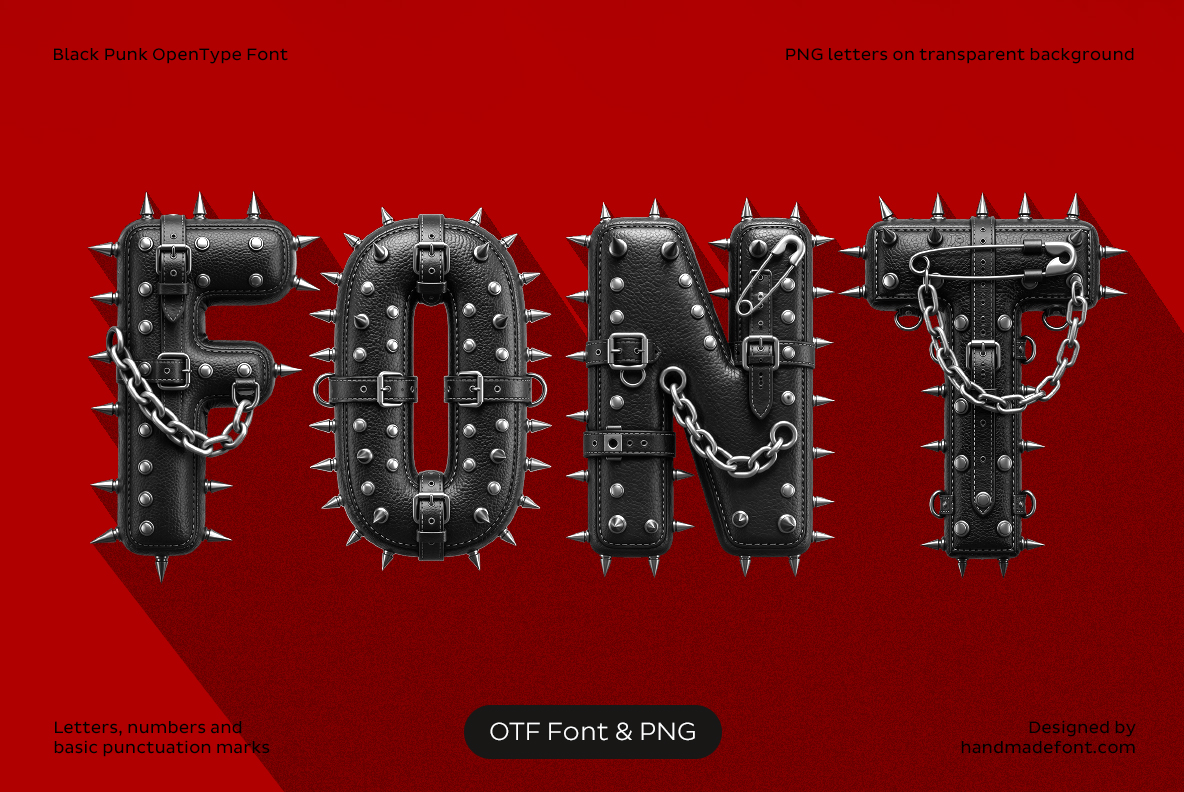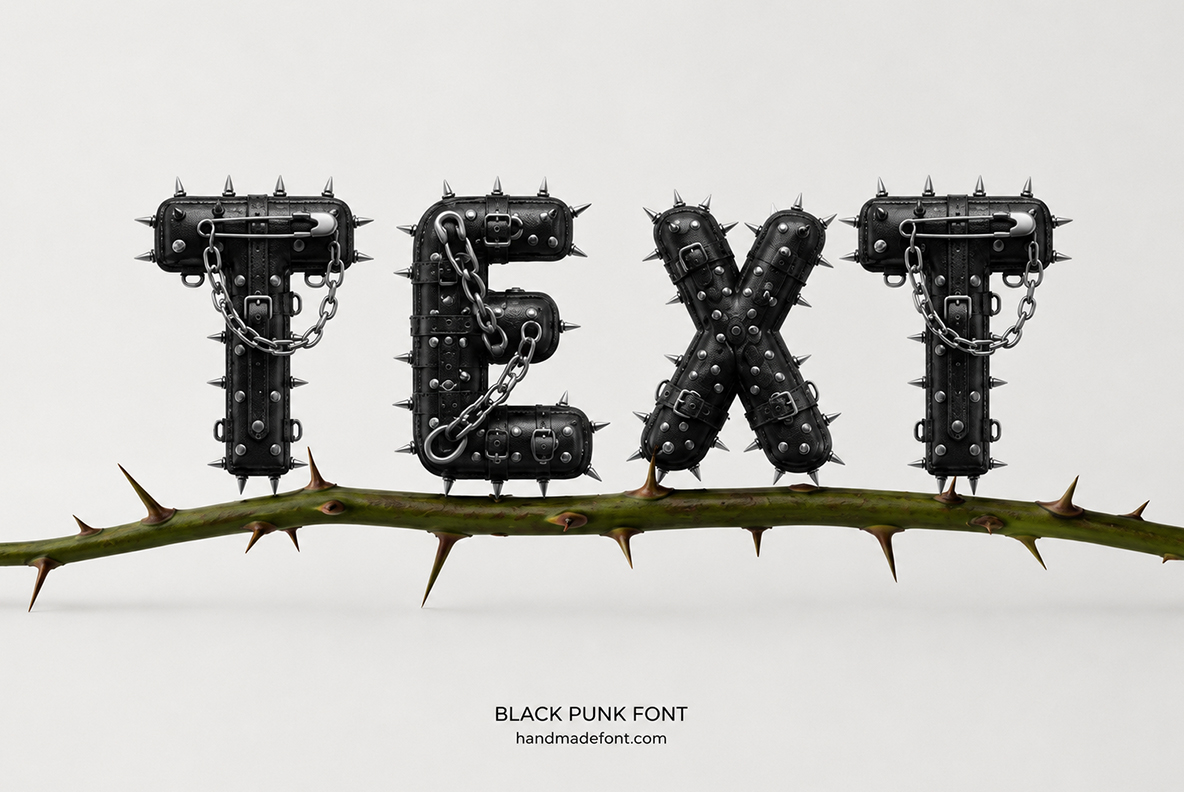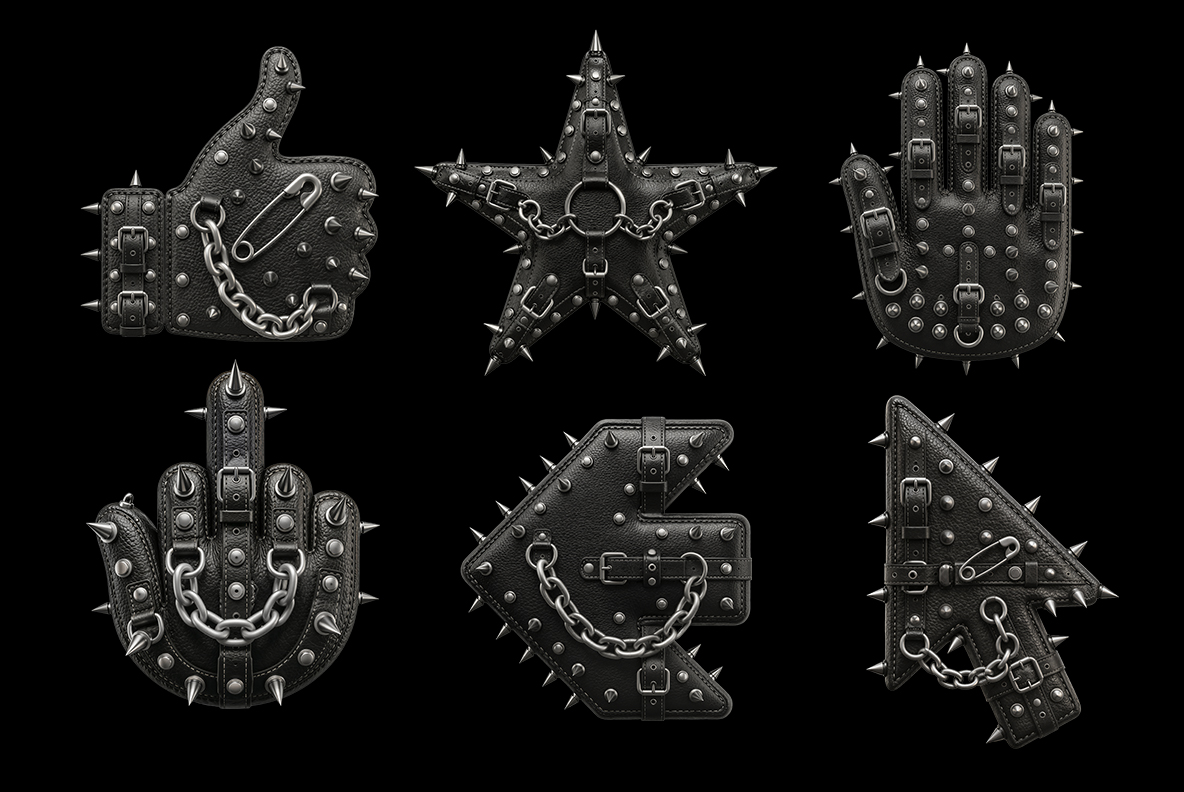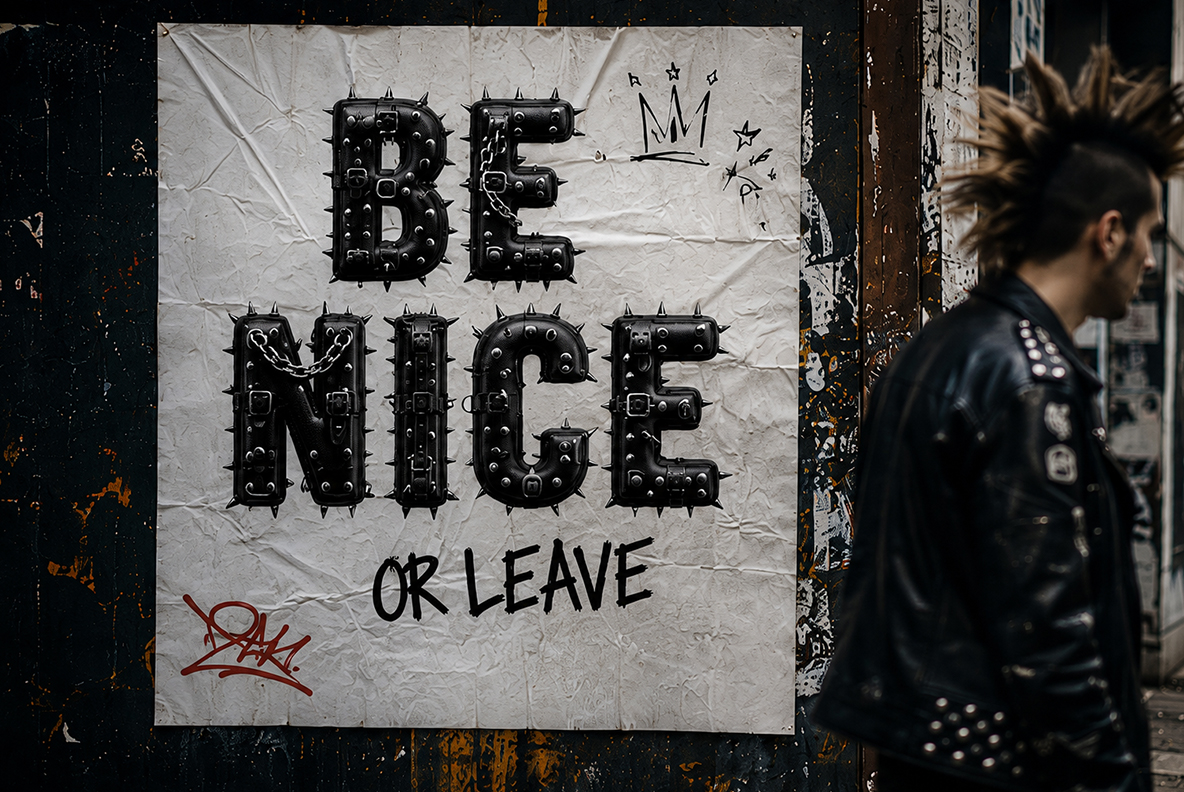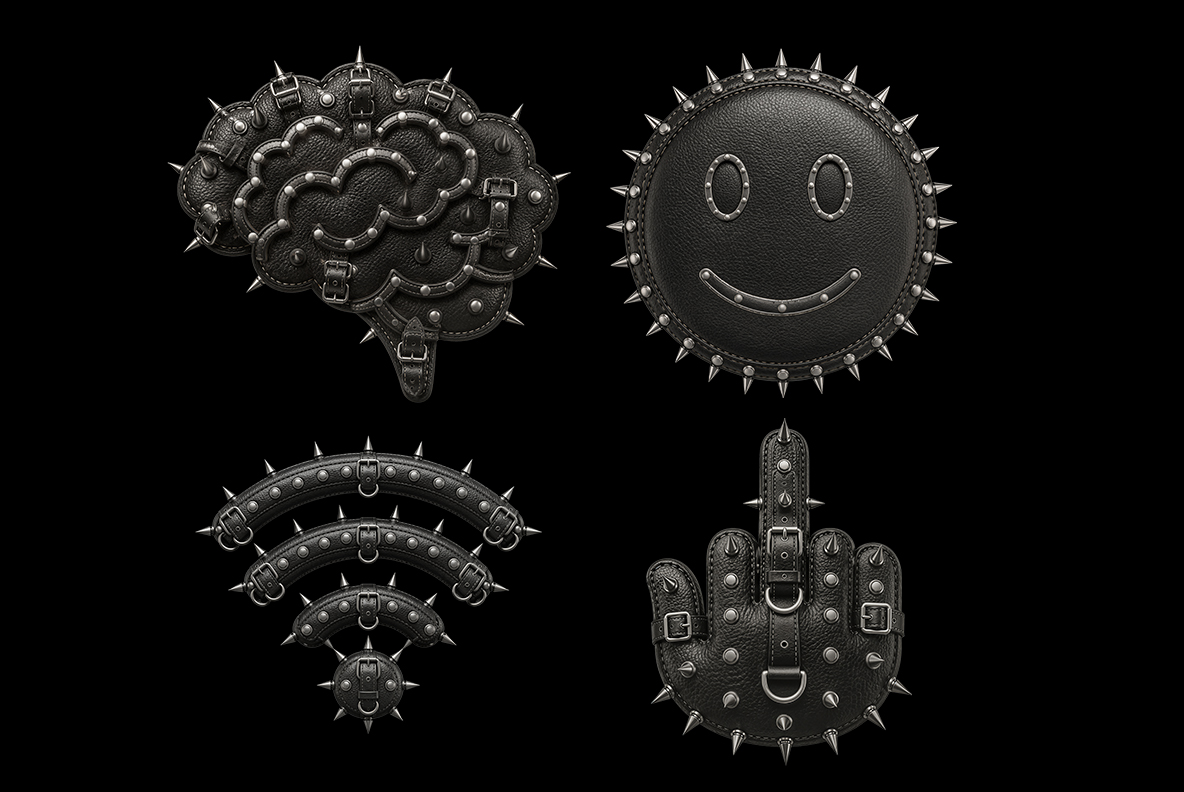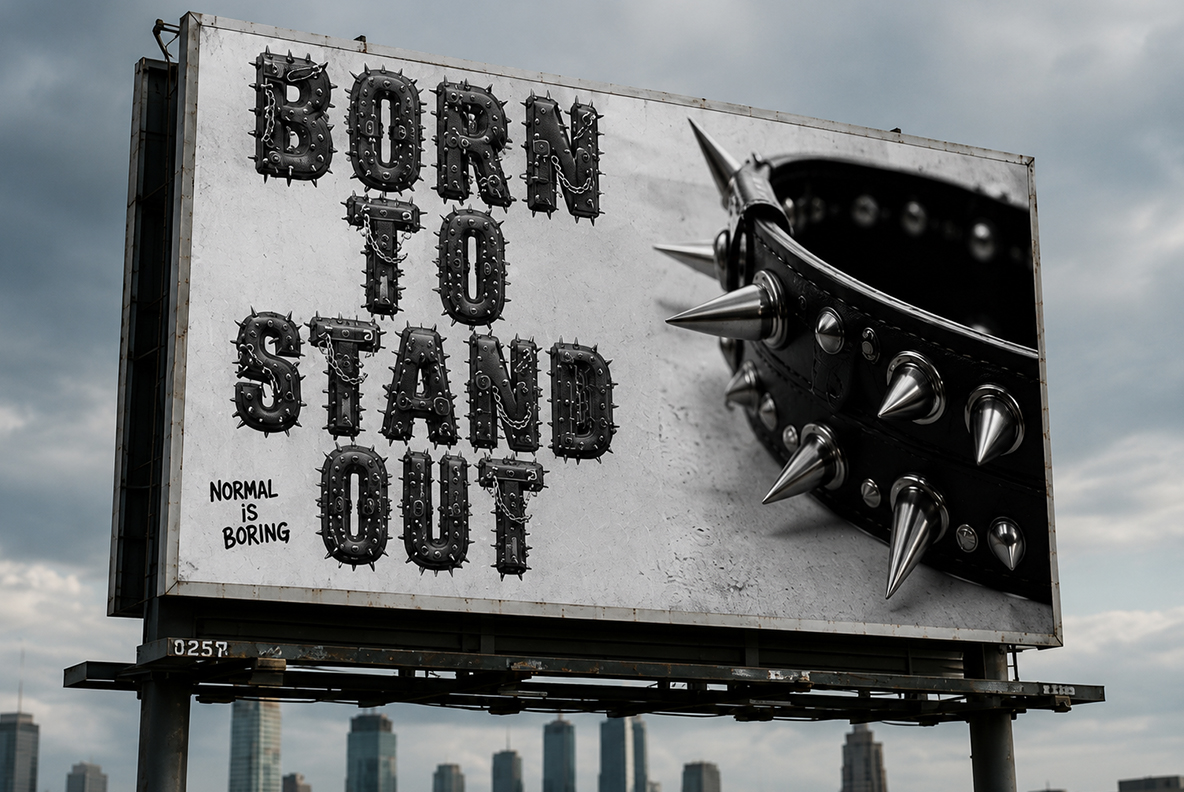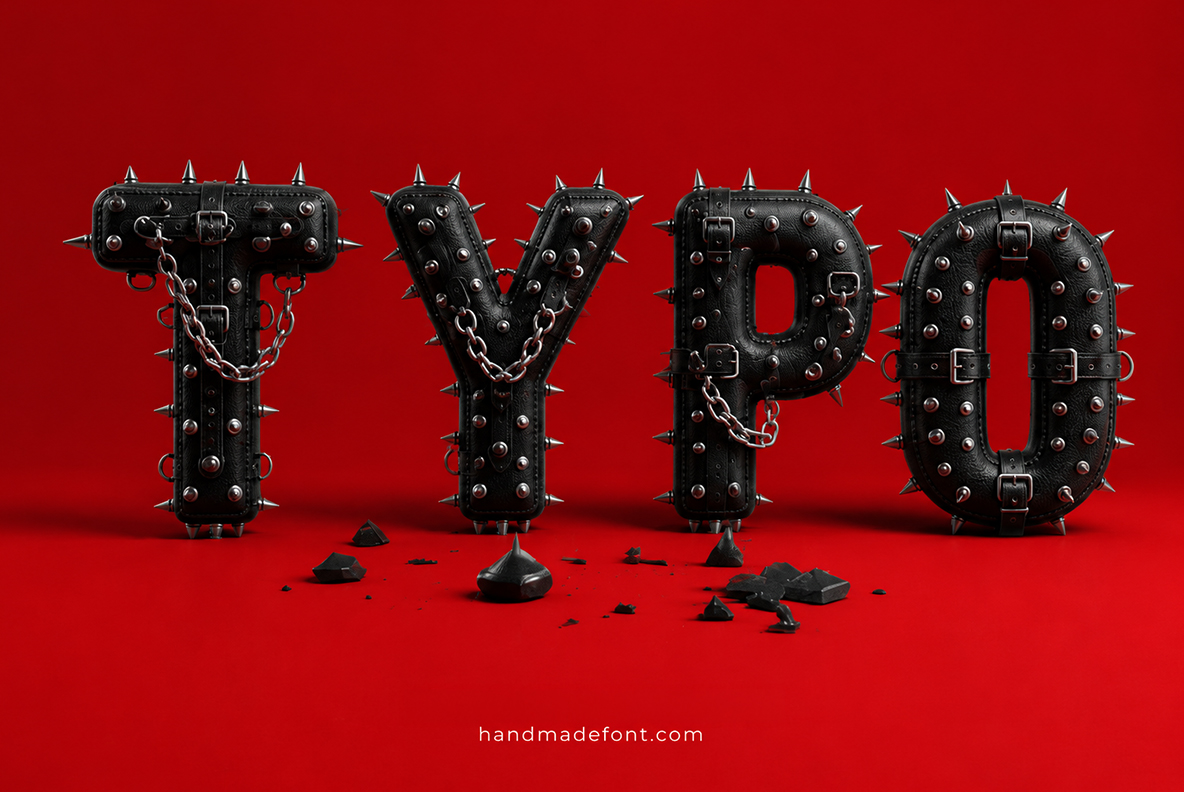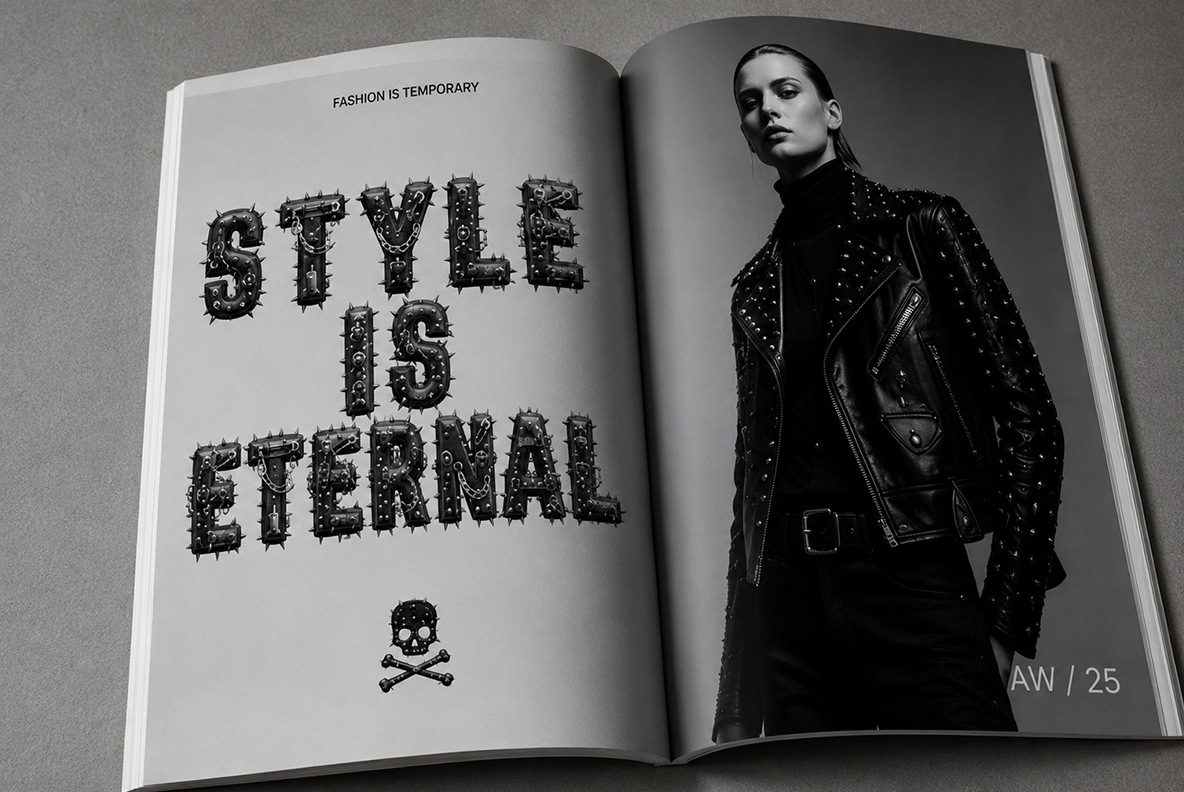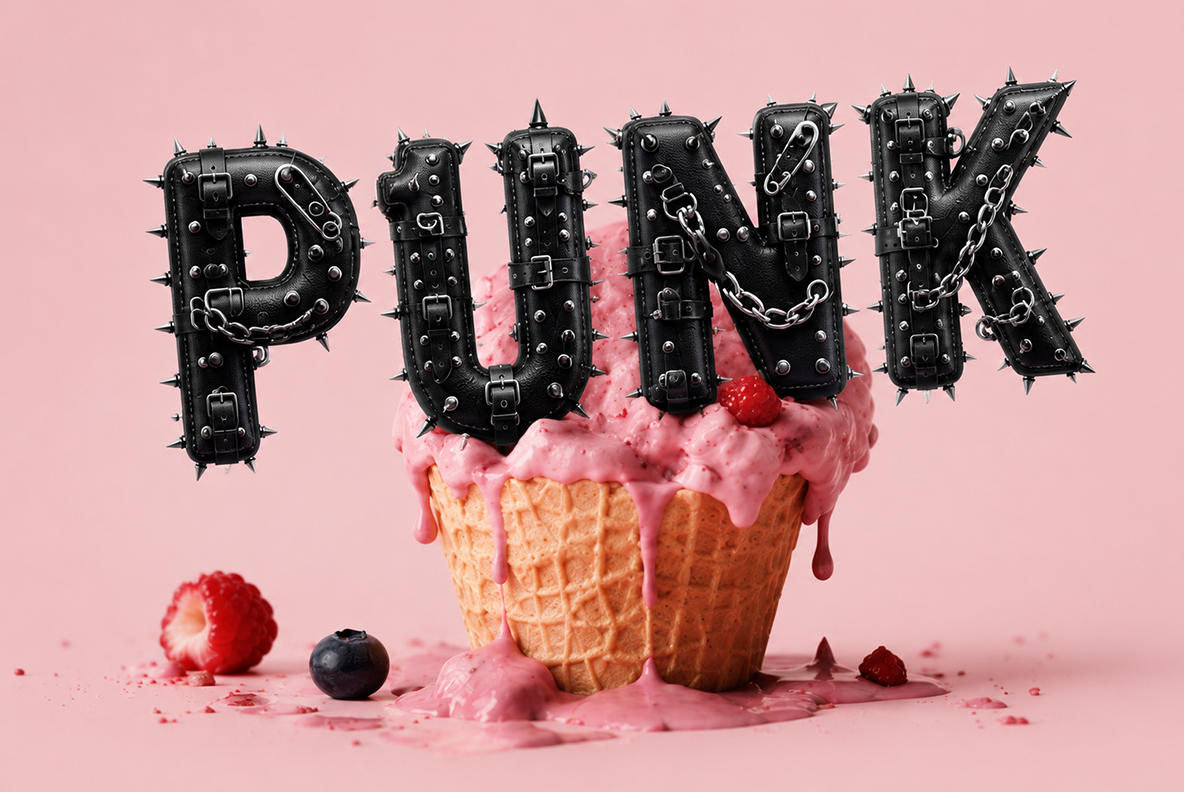
Black Punk Font. Buckled Leather Letters on Chains
Black Punk Font builds its capitals from padded leather, with stitching across the face and buckles set where a jacket would carry them. Silver spikes line the top edges, rivets run along the shoulders, and short chains loop from one letter to the next. It arrives as an OTF you type with, plus separate PNG letters on transparent backgrounds.
Black Punk Font Wears Its Hardware on the Outside
Every capital in Black Punk Font is a slab of padded leather, and of course the stitching runs across the face. Buckles sit where a jacket would carry them, since the prongs even push through real holes. Silver cone spikes line the top edges as well, so the letters look uncomfortable to pick up. Above all, the rivets sit proud of the surface, because flat black alone would read far too polite.
Quilted Panels and a Few Loose Chains
Then come the chains. Short lengths loop out of one letter and back into the next, while a couple hang free. Because the links are heavy, they pull the eye down and give a word real weight. The quilting shifts as well, since some letters carry a tight diamond grid and others stay smooth. That unevenness is deliberate, after all, because a jacket nobody has worn yet looks wrong.
Black Punk Font animated preview with a bold black letterform moving across a mustard yellow background.
Where a Studded Alphabet Earns Its Keep
Gig posters reach for Black Punk Font first, naturally. A billboard reading BORN TO STAND OUT works just as well, since the spikes finish the joke. Streetwear labels print it across the chest, while tattoo studios hang it on the door. It even survives a fashion spread, where the letters sit beside a studded jacket. Skip body text though, because nobody reads a paragraph wearing that much metal.
Black Punk Font Next to the Rest of the Leather Shelf
Black Punk Font cover showing the word FONT in black leather letters with metal spikes, buckles and chains on red.
Black Punk Font character set with spiked black leather letters, numbers and punctuation arranged on a white background.
Black Punk Font spelling OTF in black leather letters with spikes and chains beside a strawberry on a beige background.
Black Punk Font at sign and ampersand made from studded black leather, spikes and buckled straps on black.
Black Punk Font spelling DEAD TIRED on a white T-shirt worn by a crowned skeleton seated in a red velvet chair.
Black Punk Font icon set with a thumbs-up, star, skull and crossbones, hand, anatomical heart and skull in spiked leather.
Black Punk Font spelling TEXT in black leather letters with spikes and chains balanced on a long thorny branch.
Black Punk Font symbol set with a studded leather heart, arrow, starburst badge, ornate frame and skull-and-crossbones designs.
Black Punk Font spelling NO in spiked black leather inside a transparent soap bubble being touched by a finger.
Black Punk Font icon set with thumbs-up, star, open hand, raised middle finger and directional arrows in spiked leather.
Black Punk Font spelling BE NICE on a wrinkled street poster beside a punk wearing a studded black leather jacket.
Black Punk Font icon set showing a brain, smiling face, Wi-Fi symbol and raised middle finger in studded black leather.
Black Punk Font spelling BDSM in spiked black leather letters hanging from hooks with straps, a ball and a tassel on pink.
Black Punk Font spelling BORN TO STAND OUT on an outdoor billboard with a close-up spiked leather wristband.
Black Punk Font spelling TYPO in black leather letters with spikes, chains and buckles above scattered black debris on red.
Black Punk Font spelling STYLE IS ETERNAL in an open fashion magazine beside a model wearing a studded leather jacket.
Black Punk Font spelling PUNK in spiked black leather above a melting pink raspberry dessert on a pastel background.
Black Punk Font preview showing spiked leather letters ABCD and numbers 1234 on a transparent checkerboard background.